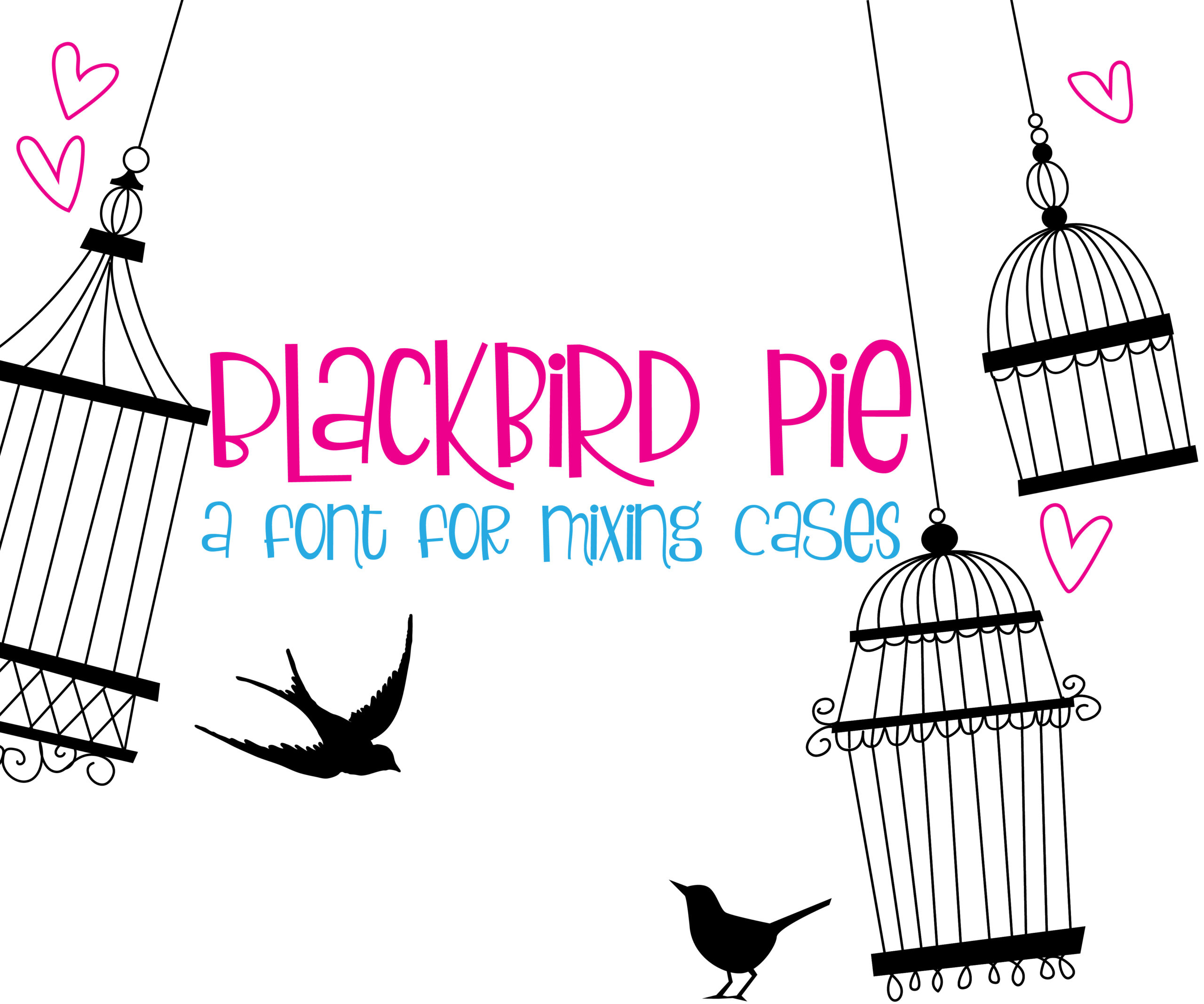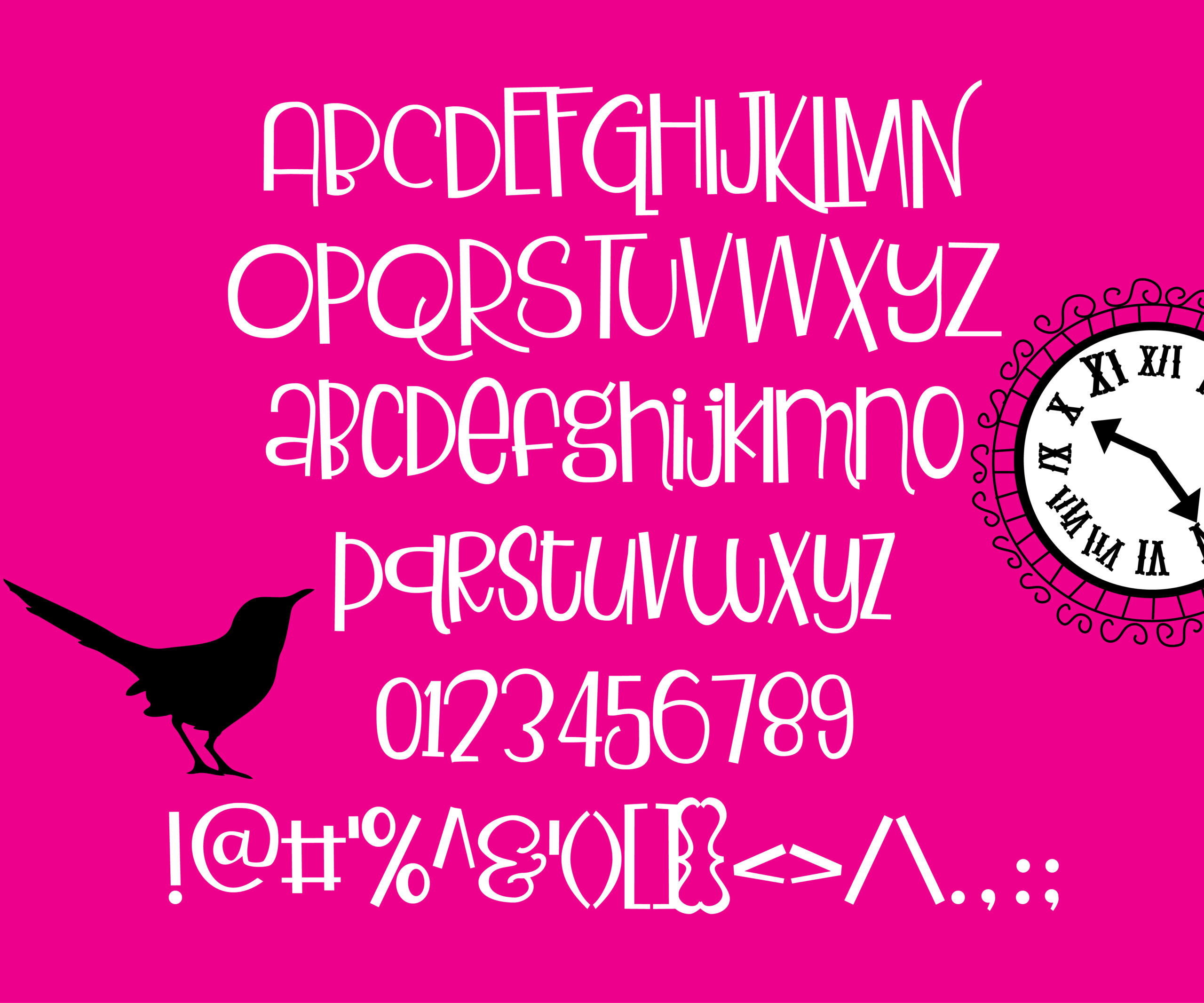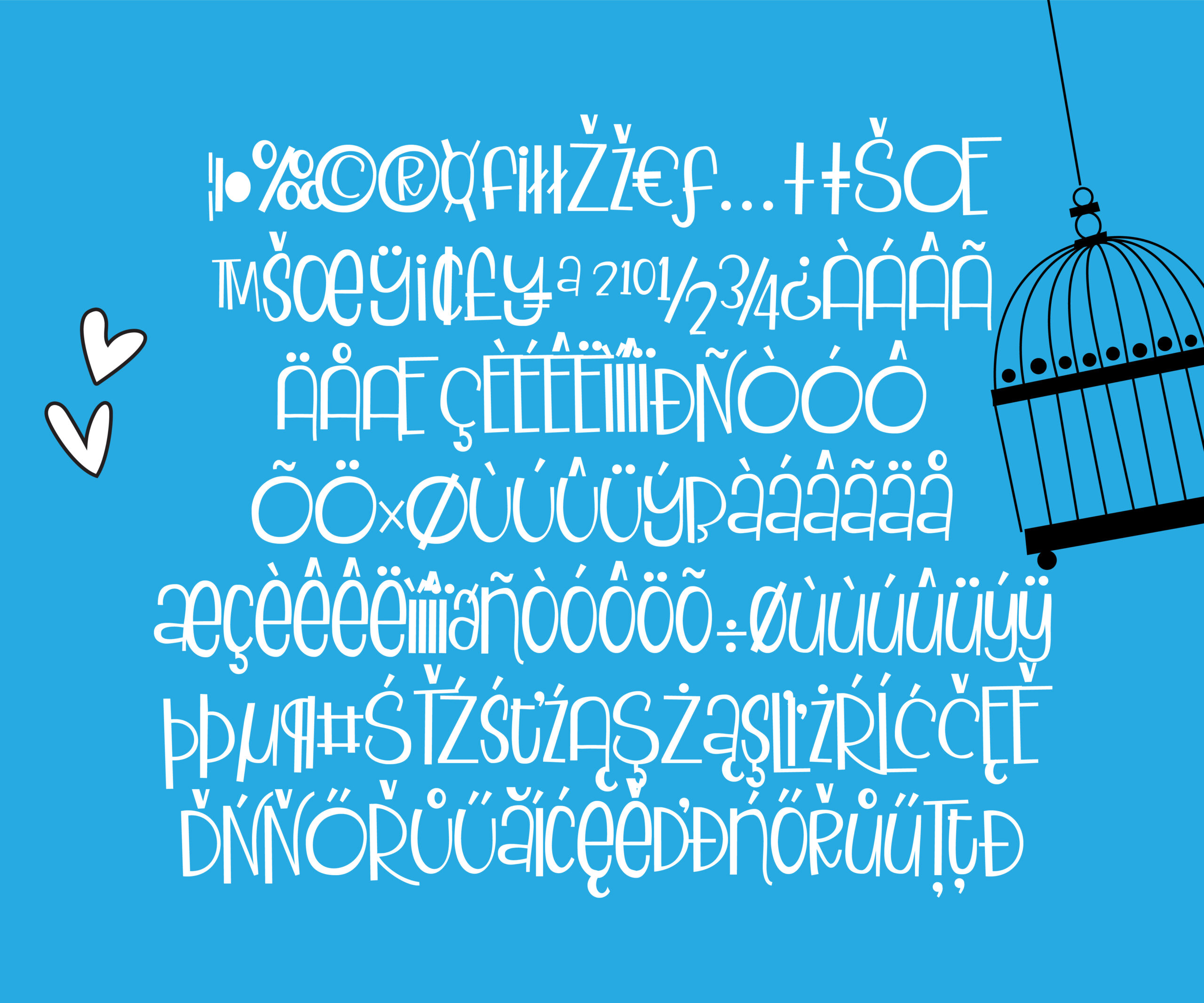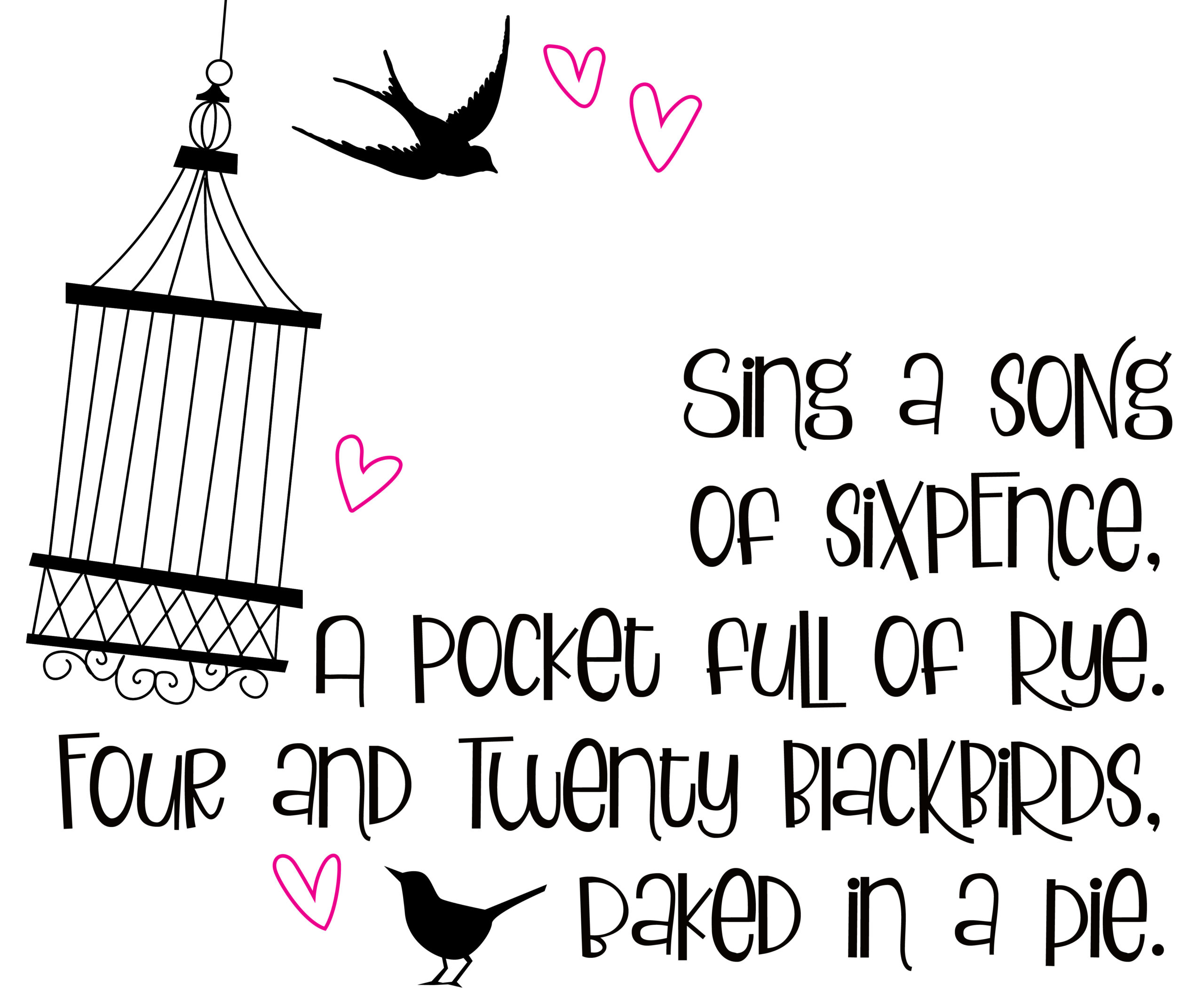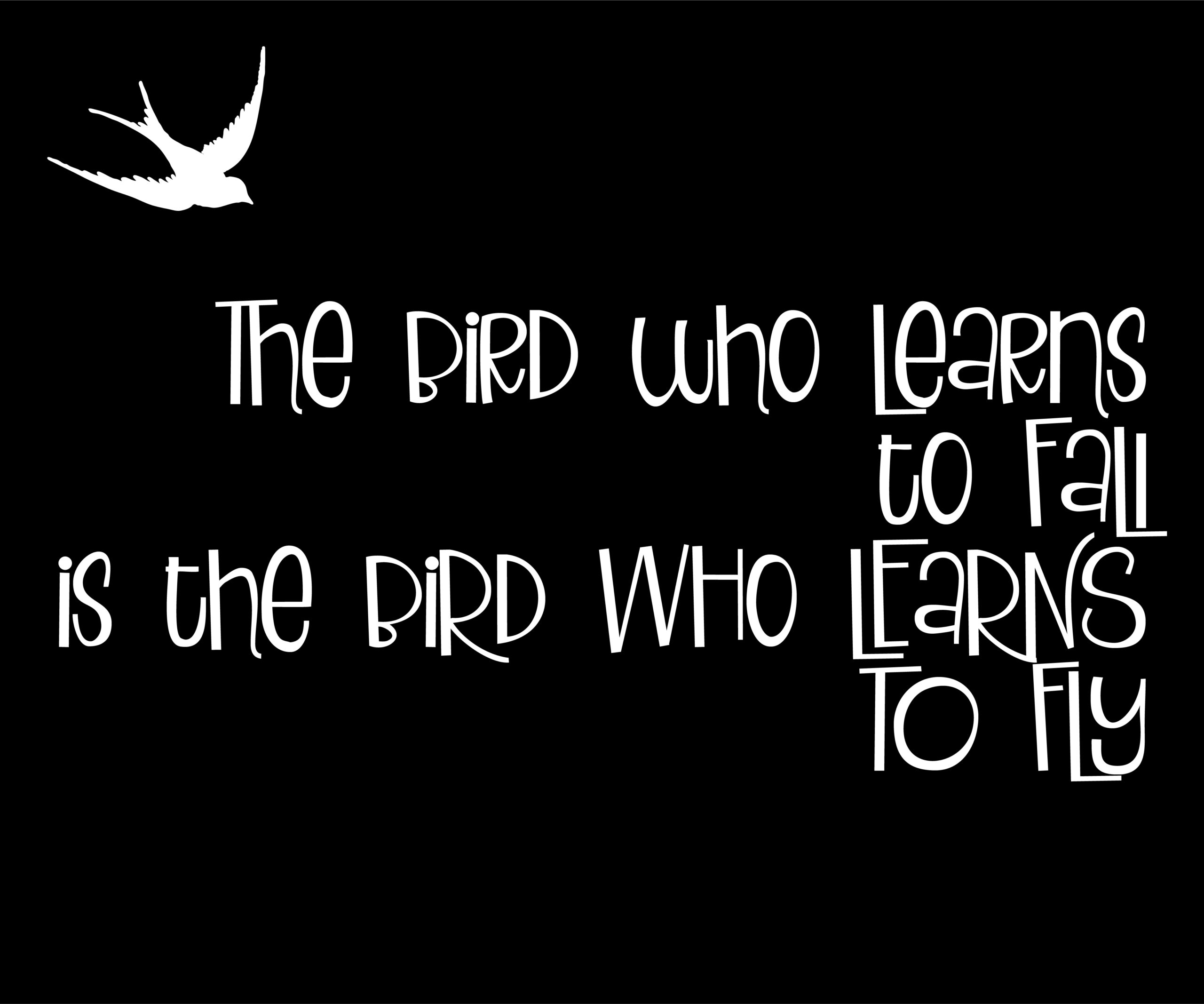
Blackbird Pie Font
About Blackbird Pie Font
Blackbird Pie is an adorable hand-crafted font that has several letters that interlock around others. This is a great handwritten sans serif font for mixing cases as you type to get creative looks.